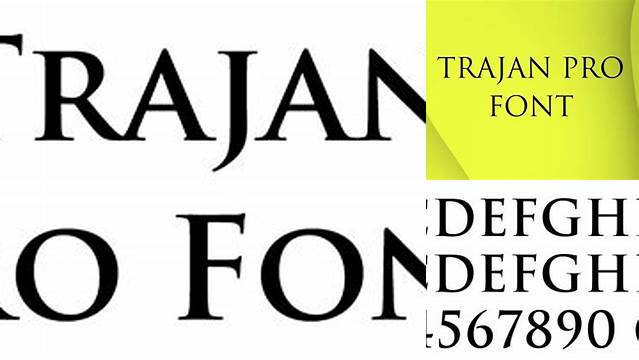
Hey guys! Ever wondered where to snag the iconic Trajan Bold font for free? Or maybe you're curious about the best ways to use it in your designs? Well, you've come to the right place! This guide dives deep into the world of Trajan Bold, exploring everything from its history and uses to where you can find free alternatives and licenses. We'll cover all the nitty-gritty details, ensuring you're equipped to make the best choices for your projects. So, let's get started!
What is Trajan Bold Font?
Trajan Bold isn't just any font; it's a classic typeface that exudes authority and elegance. Inspired by the inscription on the base of Trajan's Column in Rome, this font is characterized by its all-caps design, strong serifs, and timeless appeal. You've probably seen it everywhere, from movie posters to prestigious branding materials. Understanding its origins and unique qualities is key to appreciating its power and using it effectively. This font is the workhorse of many designers, and it's important to use it right.
The History and Origins of Trajan Bold
The history of Trajan Bold is fascinating, guys! Designed by Carol Twombly in 1989 for Adobe, it draws heavily from the lettering on Trajan's Column, which dates back to 113 AD. Twombly meticulously studied the proportions and letterforms of the original Roman inscription to create a typeface that captures its timeless beauty. This connection to ancient Rome gives Trajan Bold its sense of history and grandeur, making it a popular choice for projects that need a touch of classicism. When you use Trajan Bold, you're tapping into a rich historical legacy.
Common Uses of Trajan Bold
So, where do you typically see Trajan Bold? It's a versatile font, but it shines in specific contexts. Think movie posters (especially historical dramas), book covers, and high-end branding. Its authoritative and elegant look makes it perfect for projects that need to convey strength, tradition, and sophistication. Because it’s an all-caps font, it’s best used sparingly, perhaps for headlines or titles, to maximize its impact. The right application can elevate your design significantly.
Why Trajan Bold is So Popular
Why is Trajan Bold so popular, you ask? Several reasons! Its classic design resonates with audiences, giving projects an air of prestige and timelessness. Its legibility, even with its strong serifs, makes it a reliable choice for various applications. Plus, its association with historical significance adds a layer of depth and meaning to designs. For designers, it's a go-to font when they need to make a statement. Who wouldn't want to use a font that has such an amazing pedigree?
Free Alternatives to Trajan Bold Font
Don't fret if you're on a budget! There are some fantastic free alternatives to Trajan Bold that capture its classic feel. Fonts like Forum, * высоким*, and Crimson Text offer similar aesthetics and are available under open-source licenses. These alternatives allow you to achieve that Trajan Bold vibe without breaking the bank. It’s all about knowing where to look and what to use!
How to Identify Fonts Similar to Trajan Bold
Identifying fonts similar to Trajan Bold can be a handy skill. Look for fonts with strong serifs, all-caps designs, and a classical appearance. Websites like Font Squirrel and WhatTheFont can help you identify fonts based on visual similarity. Recognizing these characteristics will make it easier to find suitable alternatives for your projects. Plus, you’ll start to develop an eye for typography, which is always a good thing.
Trajan Pro vs. Trajan Bold: Key Differences
You might have heard of Trajan Pro. What’s the difference between that and Trajan Bold? Trajan Pro is an updated version that includes a wider range of characters and improved kerning (the spacing between letters). While Trajan Bold is a classic, Trajan Pro offers more versatility and refinement. Understanding these nuances can help you choose the best option for your specific needs. Sometimes, the small differences can make a big impact!
Trajan Bold: Frequently Asked Questions (FAQs)